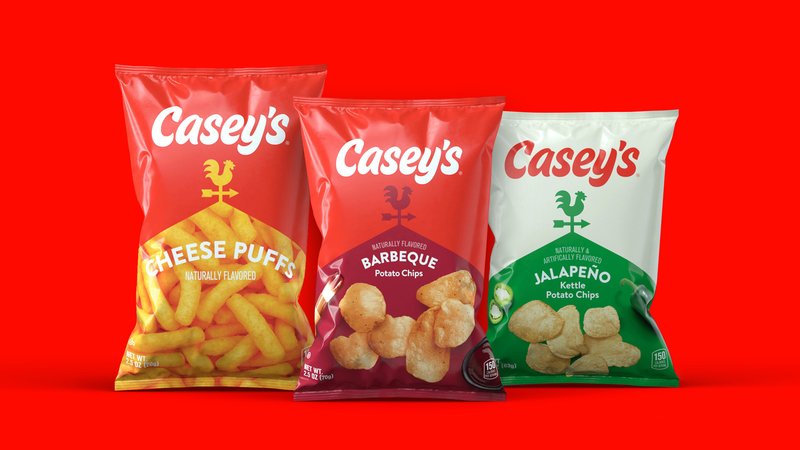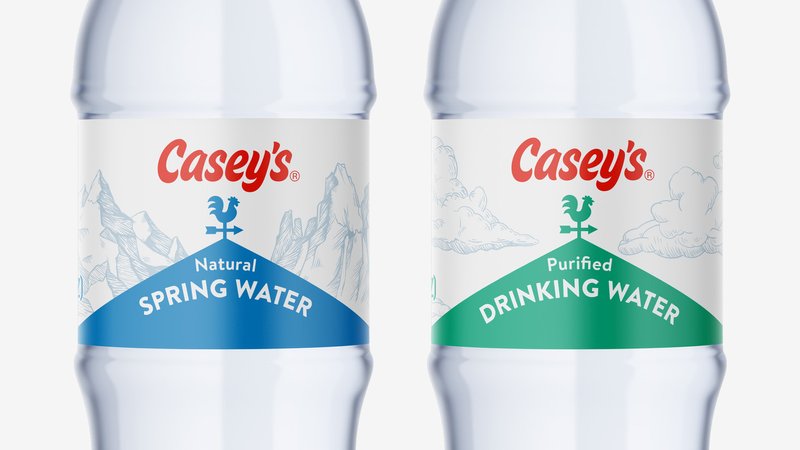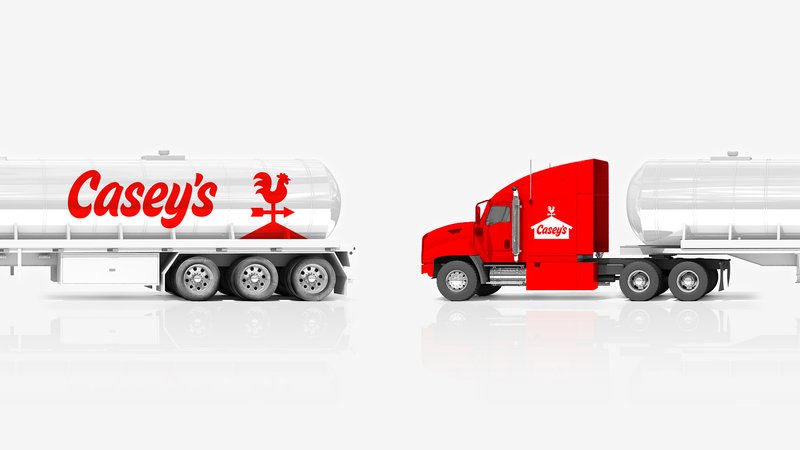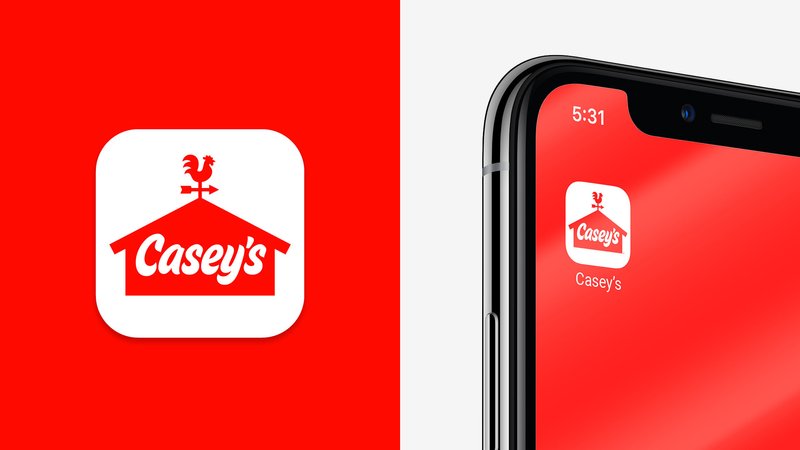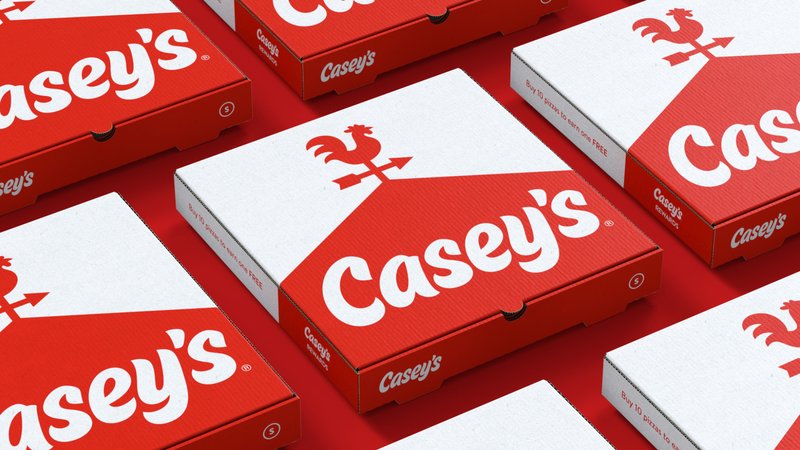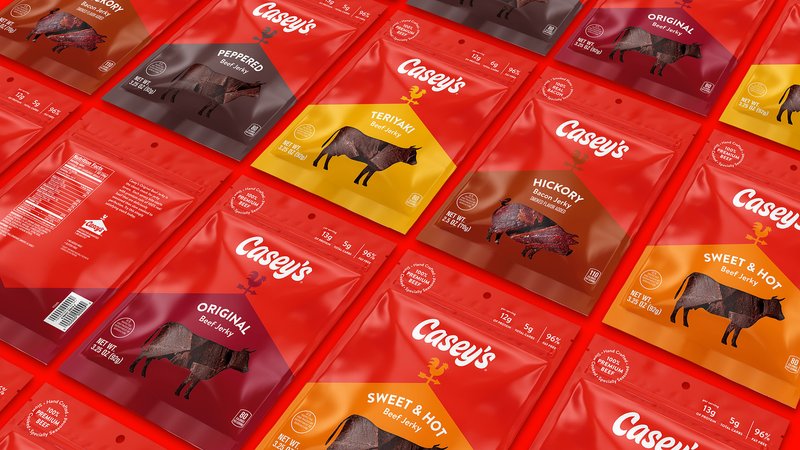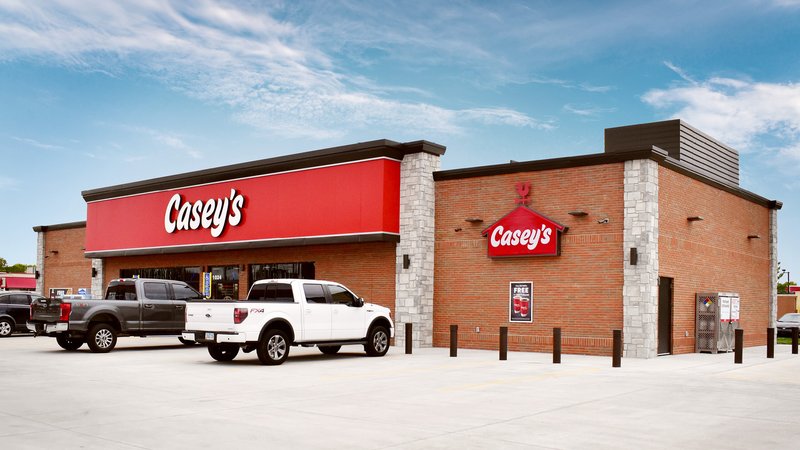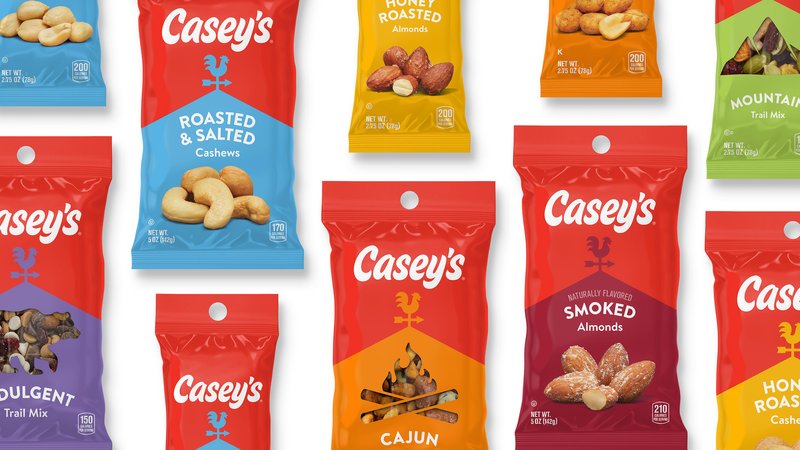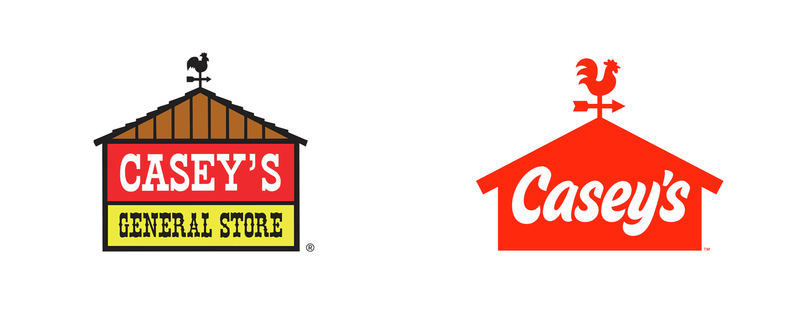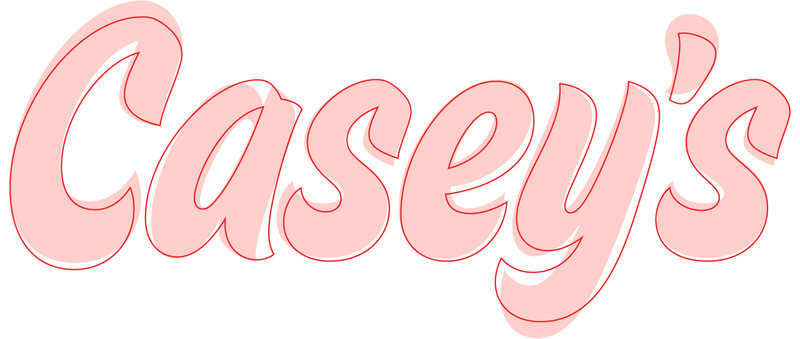
Custom lettering for Casey’s
A troublesome character
“This whole project started because of an apostrophe” is not a line you hear often, but in the case of the rebranding of Casey’s convenience stores, that’s where our involvement with Interbrand’s award-winning identity began.
Interbrand had already licensed a solid typeface for their major reboot of the Casey’s identity: House Movements Sign, designed by our good friend Ken Barber at House Industries. But the overbearing apostrophe and a few of the letterforms were not working for the design team. They hired Jesse Ragan to apply his expertise to closely refine the lettering, optimize it for use at a wide range of sizes, and yes, rethink that pesky apostrophe.
The old and new Casey's logos, side by side
Previous and new Casey’s logos
Letters and feathers
Interbrand also asked Jesse to redraw the weather vane illustration based on their sketch. Treating that image like a letterform and treating the letterforms like an image, he brought the two elements into alignment and gave it a final polish.
Can the e and the y have a conversation? How can we apply the idea of legibility to a rooster’s beak?
Real questions we asked during this project
Redrawing both the rooster and the letterforms in the same style was admittedly a strange—but fun—challenge. Jesse found ways to nestle specific letter combinations together comfortably and adjusted the tail feathers to match the C and S. He also tweaked the rooster’s chest to look “prouder,” reworked the beak to look more prominent, and made every detail more clearly defined.
Because the logo was going to be used both very large (building signs) and very small (digital screens), many tiny adjustments were required to make the entire lockup both legible and iconic.
Two versions of the word "Casey's" overlaid
The original House Movements typeface (pale pink infill) compared to the final logotype (red outline)
Casey’s signage installation
Specialists for a specialty
Often, when a design agency comes to us with a “final” logo their client has approved, we step in with micro-adjustments that may be hard to spot at first. But if you’re going to fabricate enormous signage for more than 2,000 locations—not to mention innumerable pizza boxes—it’s worth going the extra mile.
Jesse Ragan custom cut the logotype to improve legibility while retaining the quirky characteristics. These uniquely combined design elements allow the logo to flex everywhere it needs to show up.
House Movements Sign, designed by Ken Barber